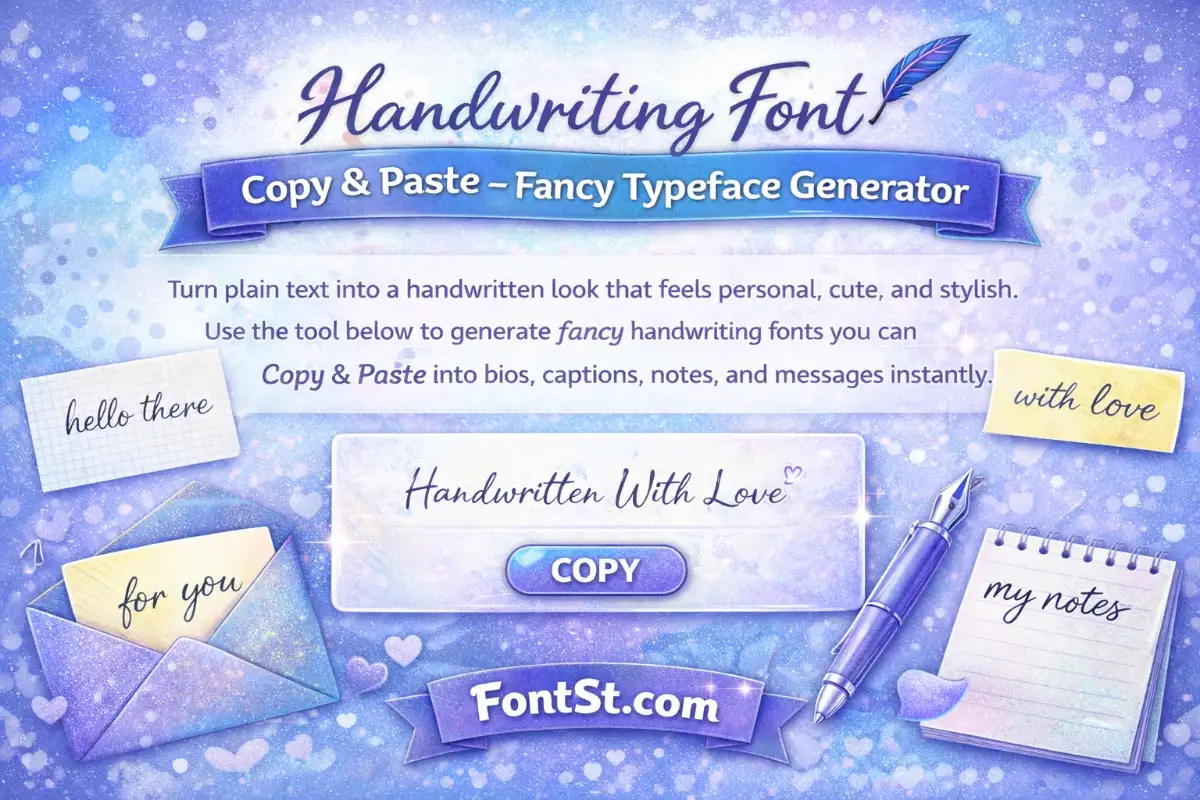
Handwriting Font Copy & Paste – Fancy Typeface Generator
Turn plain text into a handwritten look that feels personal, cute, and stylish. Use the tool below to generate fancy handwriting fonts you can Copy & Paste into bios, captions, notes, and messages instantly.
What Is A Handwritting Font?
A handwritting font (people also spell it “handwriting”) is any typeface that looks like real pen or marker writing. The goal is to make text feel more human—like a note, signature, or quick doodle—rather than a standard keyboard font.
Common handwriting vibes:
• Neat handwriting (clean, readable, everyday)
• Cursive/script (smooth, romantic, “signature” feel)
• Playful handwriting (cute, bubbly, youthful)
Tip: If you’re posting on mobile (bios, comments), pick a handwriting style that stays readable at small sizes.
Font With Handwriting For Bios And Captions
If you want a font with handwriting for social posts, start with short lines. Handwriting styles look best when the text is simple and not too long.
Great ideas to try:
• Names and nicknames
• “Note-style” captions (1 line)
• Short quotes (under ~10 words)
• Sign-off lines: “Love, ____”
How To Use Fancy Handwriting Generator
Quick tips:
• If a style looks “too curly,” switch to a neat handwriting option
• For usernames, keep it short so it doesn’t look crowded
Written Font Style Copy And Paste
A written font style copy and paste workflow is perfect when you want speed—no downloads, no installs, no design tools.
Best use cases:
• “Handwritten” display names
• Aesthetic story captions
• Cute comment replies
• Signature lines for posts
Try these templates:
• “hello there”
• “today’s mood”
• “with love”
• “my notes”
Popular Handwriting Font Styles People Love
A popular handwriting font usually has one job: look handwritten but stay clear. The most-used types are:
• Clean handwriting for everyday posts
• Cursive handwriting for romantic vibes
• Marker-style handwriting for bold, playful captions
If you’re not sure what to choose, start with a clean handwriting style first—then test cursive.
Great Handwriting Fonts For Different Moods
If you’re looking for great handwriting fonts, match the mood:
• Cute & sweet → rounder handwriting styles
• Romantic → cursive/script handwriting
• Minimalist → thin, clean handwritten styles
• Bold aesthetic → marker-like handwriting
A helpful trick: use fewer emojis when the font is already decorative.
Handwriting Lucida And Similar Looks
People often search handwriting lucida because they want a classic, familiar handwritten vibe that feels “normal” and readable.
If you want that same kind of feel:
• Choose neat handwriting styles
• Avoid heavy symbols and overly curly scripts
• Use title case rather than all caps for a softer look
Free Handwriting Script Font
When people say free handwriting script font, they usually want a smooth cursive look. In the generator:
• Type your phrase
• Choose a script/cursive handwriting style
• Keep it short for the cleanest result
Best short phrases:
• “hello”
• “thank you”
• “love you”
• “always”
FAQ – Handwriting Typography
Hand Writing Font Free
• If you mean “free to use,” the easiest option is a copy & paste generator like this page—no install required. If you mean “free download,” look for font licenses that allow your intended use.
Good Font For Handwriting
• A good handwriting font is readable, balanced, and not overly decorative. For bios and small screens, pick a neat handwriting style; for romantic text, choose a simple cursive style.
Pretty Handwriting
• Pretty handwriting is smooth and tidy—like a nice note. Use short phrases, avoid ALL CAPS, and pick a clean script if you want a “pretty” look without losing readability.
Alphabet In Cursive Font
• If you want the full alphabet in cursive font style, type a test string like: abcdefghijklmnopqrstuvwxyz ABCDEFGHIJKLMNOPQRSTUVWXYZ 0123456789
• Then pick a cursive handwriting style and copy the result to preview how each letter looks.